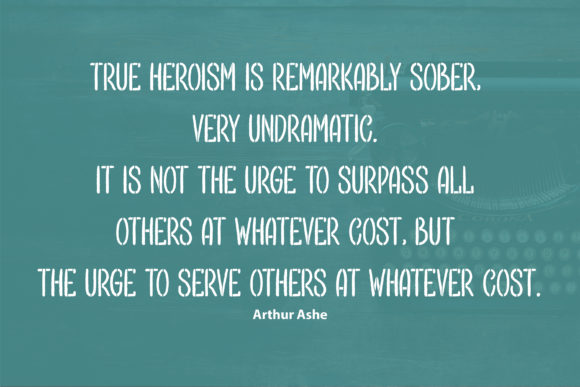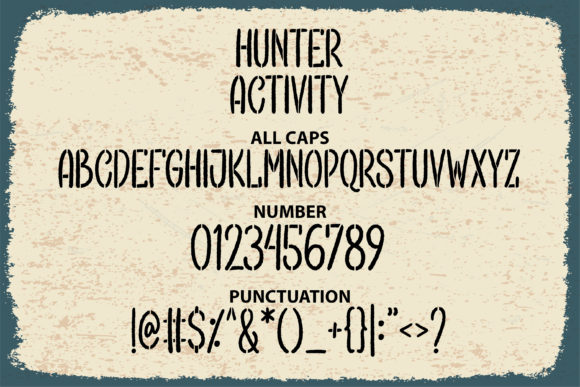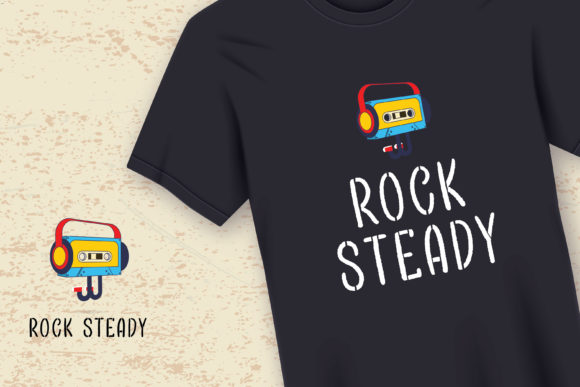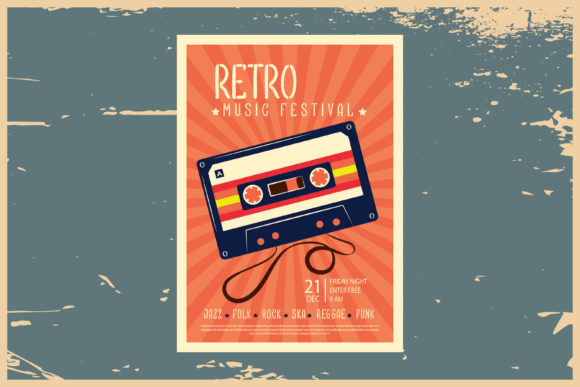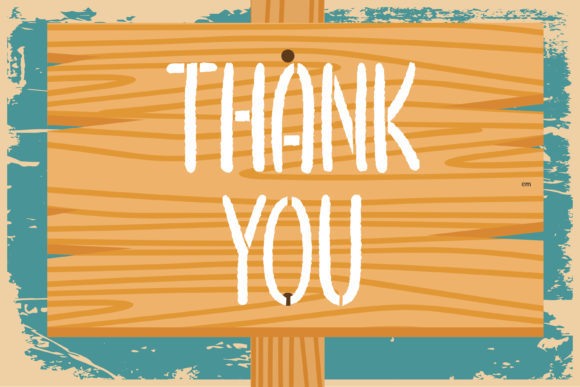
Introduction to Hunter Activity Font Font
Fonts play a crucial role in design, and the Hunter Activity Font font is a typeface that brings both character and versatility to any project. Whether you’re working on a branding project, a website, or a print design, the Hunter Activity Font font offers a unique style that can elevate your work.
Hunter Activity is a simple and neat lettered display font.
Add this font to your creative ideas and notice how it will make them stand out .
Key Features of Hunter Activity Font Font
Why Choose Hunter Activity Font Font?
The Hunter Activity Font font is more than just a typeface – it’s a design tool that helps you communicate your message with style and clarity. Its unique character set and versatile design make it suitable for a wide range of applications, from elegant invitations to bold headlines.
With its carefully crafted letterforms and balanced proportions, the Hunter Activity Font font ensures readability and visual appeal across all mediums.
What makes Hunter Activity Font font special?
The Hunter Activity Font font stands out with its unique design, exceptional readability, and versatility across various design applications.